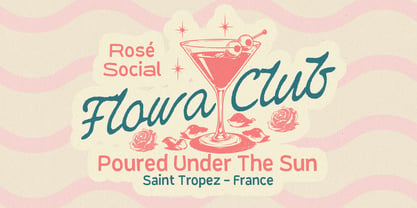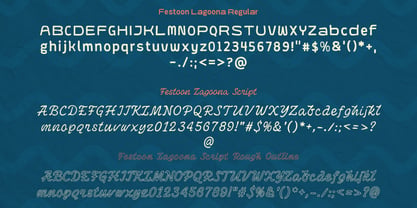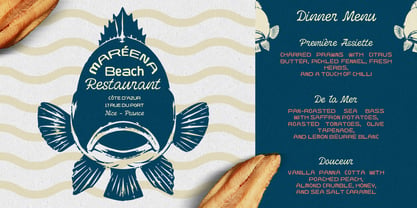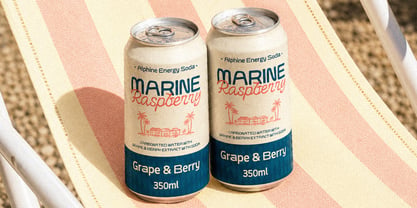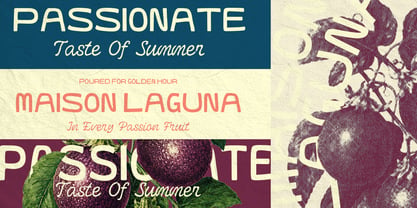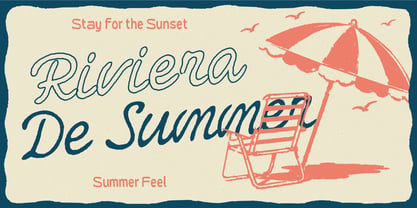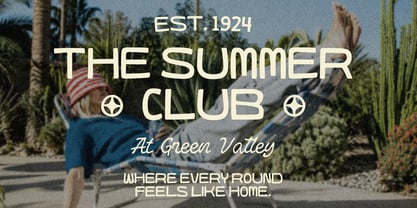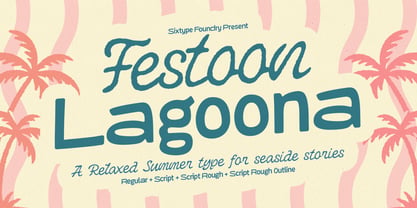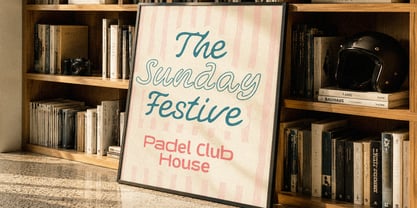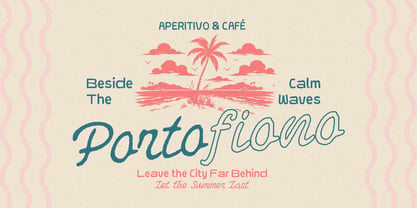
Festoon Lagoona
The Festoon Lagoona Font Family and published by Sixtype Foundry. Festoon Lagoona contains 4 styles and family package options. More about this family
Festoon Lagoona is a charming font duo inspired by sun-soaked coastlines, vintage beach clubs, and laid-back summer escapes. Combining a clean rounded sans serif with an expressive handwritten script, this typeface delivers effortless harmony between modern simplicity and organic personality. The included rough script and outline variations add extra texture and handcrafted appeal, making it easy to create authentic retro-inspired designs with depth and warmth.
Perfect for branding, packaging, café menus, restaurant identities, beverage labels, travel posters, social media graphics, editorial layouts, invitations, apparel, signage, and lifestyle products, Festoon Lagoona captures the relaxed spirit of seaside living while remaining highly versatile for contemporary design projects. Whether you're building a coastal brand, creating vacation-themed graphics, or designing elegant hospitality materials, this font duo offers a fresh balance of casual sophistication and timeless summer charm.